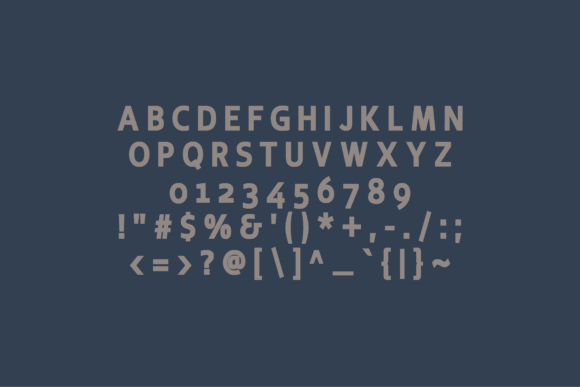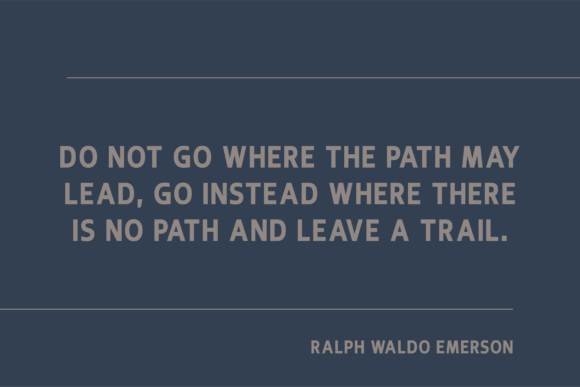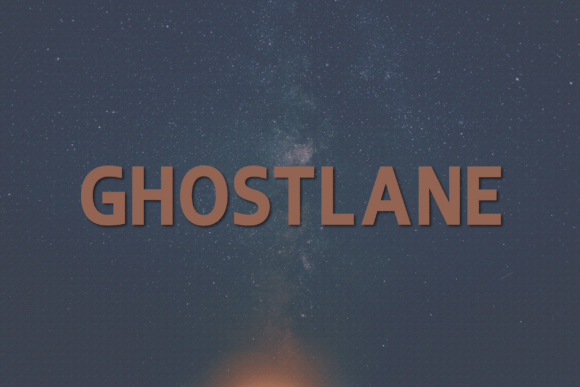
Introducing Ghostlane Font: Elevate Your Designs with Modern Elegance
In the world of typography, a font can make or break a design. It’s the foundation upon which your creative vision is built, and choosing the right one can be a daunting task. However, if you’re looking for a typeface that exudes modernity, class, and versatility, look no further than Ghostlane Font. This stunning sans serif font is designed to elevate your designs, whether you’re a professional designer or a crafty DIY enthusiast.
What is Ghostlane Font?
Ghostlane is a sleek and sophisticated sans serif typeface that features upper characters, numbers 0-9, and a range of punctuation and symbols. Its clean lines, precise curves, and balanced proportions make it perfect for a wide range of applications, from logos and branding to weddings, invitations, quotes, advertisements, and more.
Key Features of Ghostlane Font
- Modern and Classy Design: Ghostlane boasts a contemporary design that’s both stylish and timeless. Its sans serif structure gives it a clean and minimalist look that’s perfect for designs that require a touch of sophistication.
- Upper Characters, Numbers, and Symbols: This font includes a comprehensive set of upper characters, numbers 0-9, and a range of punctuation and symbols, making it incredibly versatile and practical.
- Extremely Versatile: Whether you’re designing a logo, creating wedding invitations, or crafting advertisements, Ghostlane is the perfect choice. Its adaptability ensures that it will work seamlessly in various contexts, from print to digital media.
Use Cases for Ghostlane Font
Ghostlane’s versatility is one of its standout features, making it suitable for a wide range of projects, including:
- Logos and Branding: Create a lasting impression with a logo that exudes modernity and elegance. Ghostlane’s clean design ensures that your brand’s message is conveyed clearly and effectively.
- Weddings and Invitations: Add a touch of sophistication to your wedding invitations, save-the-dates, and other stationery with Ghostlane’s classy design.
- Quotes and Typography: Use Ghostlane to create stunning typographic quotes, posters, and prints that showcase your favorite phrases or inspiring words.
- Advertisements and Marketing: Elevate your advertisements, brochures, and marketing materials with a font that’s both modern and attention-grabbing.
- Print and Magazines: Ghostlane is perfect for editorial designs, including magazines, newspapers, and books, where its clean lines and readability shine.
Why Choose Ghostlane Font?
With so many fonts available, why choose Ghostlane? Here are a few compelling reasons:
- Unique and Modern Design: Ghostlane offers a fresh and contemporary design that will set your projects apart from the rest.
- Highly Versatile: Its adaptability ensures that it can be used in a wide range of applications, saving you time and effort in searching for multiple fonts.
- Ease of Use: Ghostlane is easy to read and works seamlessly in various contexts, making it a practical choice for designers and crafters.
Ghostlane Font is a game-changer for designers and crafters looking for a modern, classy sans serif typeface. Its versatility, readability, and stunning design make it perfect for a wide range of projects, from logos and branding to weddings, invitations, and advertisements. Whether you’re a professional designer or a DIY enthusiast, Ghostlane is an excellent addition to your font library. So why wait? Discover the power of Ghostlane Font and elevate your designs to new heights!